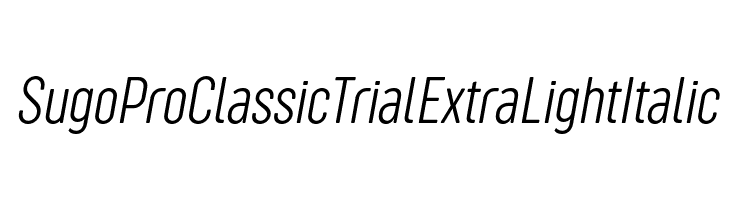
A sleek, modern oblique font with smooth, rounded edges and a dynamic appearance.
A modern, geometric sans-serif font with clean lines and balanced proportions.
A modern, geometric sans-serif font with clean lines and uniform strokes.
A modern, italicized font with uniform stroke weight and dynamic style.
A sleek, modern italic font with consistent stroke weight and a dynamic appearance.
A modern, geometric font with tall, narrow characters and consistent stroke weight.
A modern, light, sans-serif font with geometric and minimalist design.